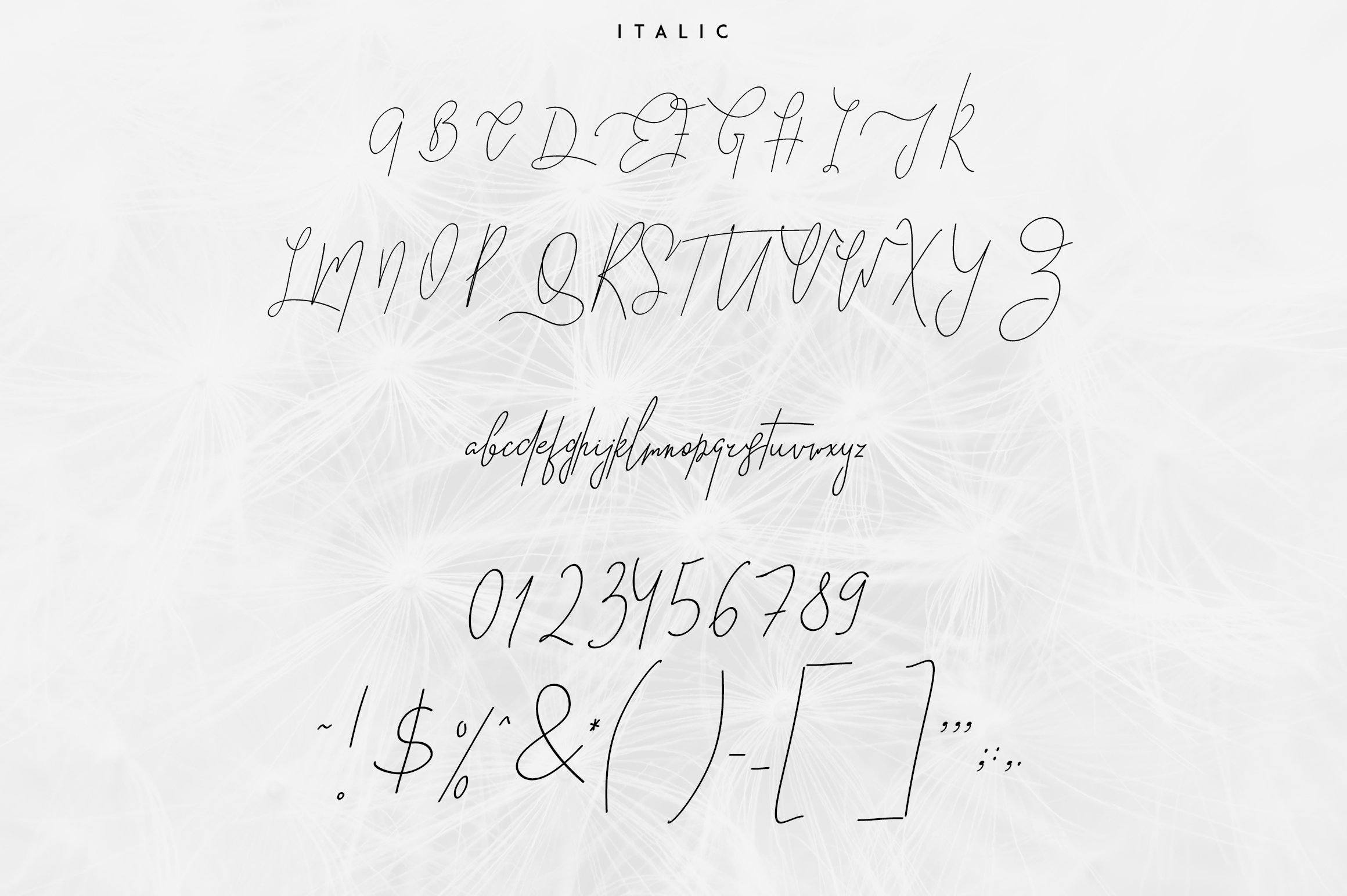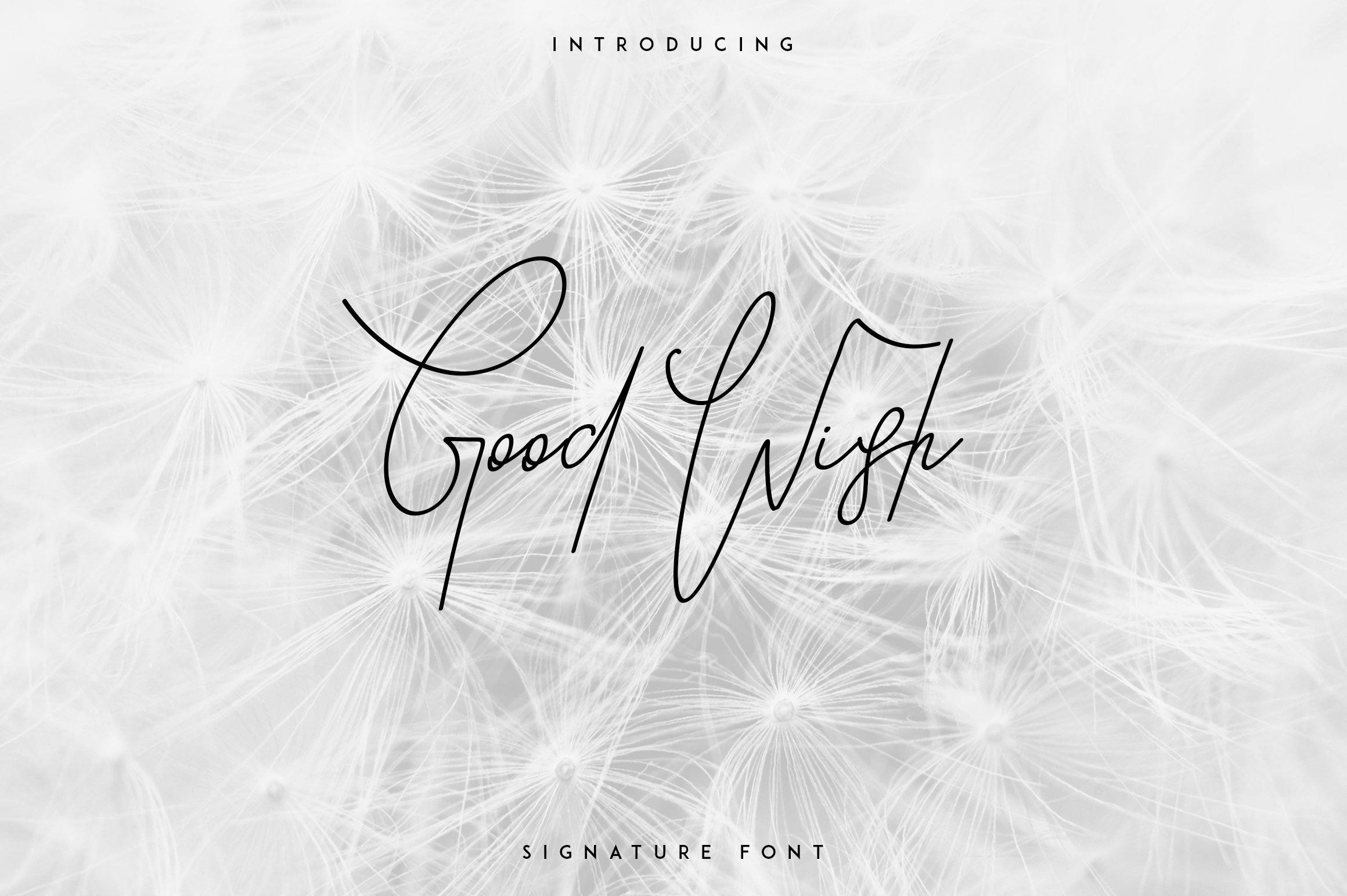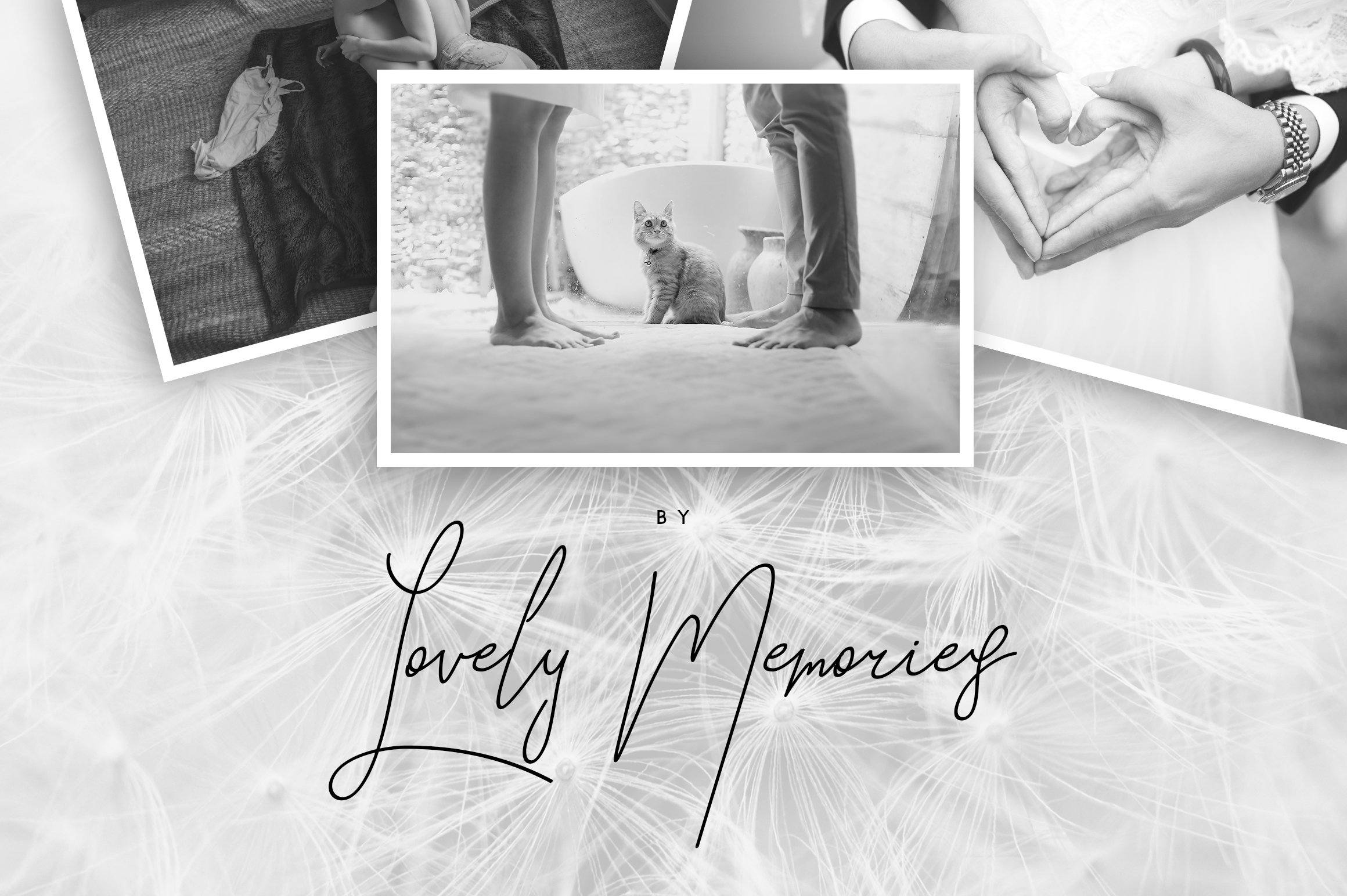
About Good Wish Signature font
Introducing Good Wish Signature font Good Wish is signature font with regular and italic style and multilingual support. It’s a very versatile font that works great in large and small sizes. Good Wish is perfect for branding projects, home-ware designs, product packaging, wedding invitations, magazine headers – or simply as a stylish text overlay to any background image. Regular Italic Uppercase,lowercase,numeral,punctuation & Symbol Multilingual Feel free to contact me if you have any questions! Mock ups and backgrounds used are not included! Thank you! Enjoy!